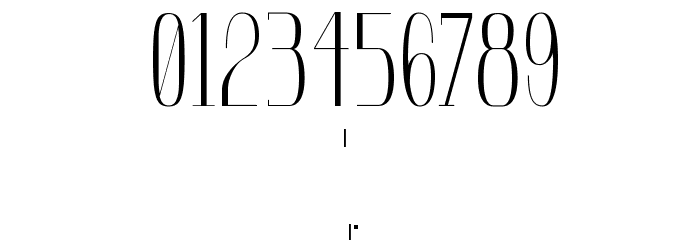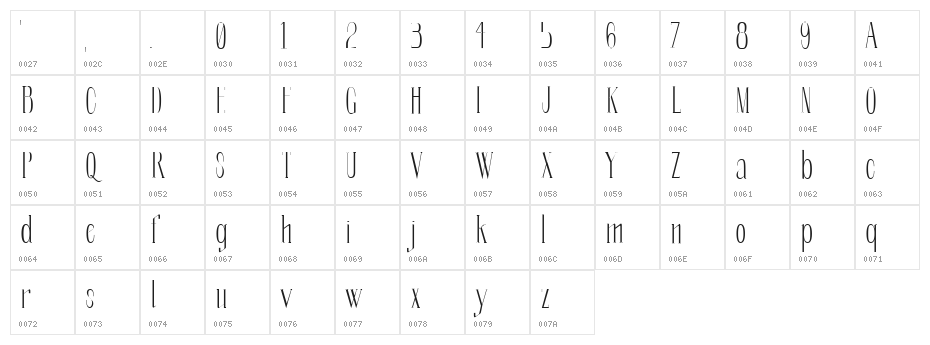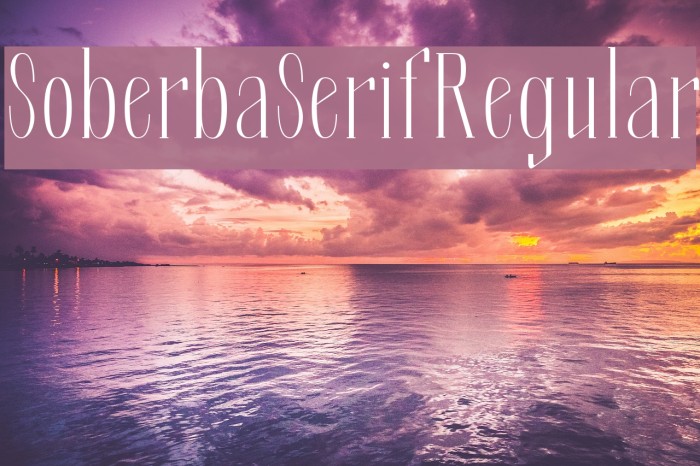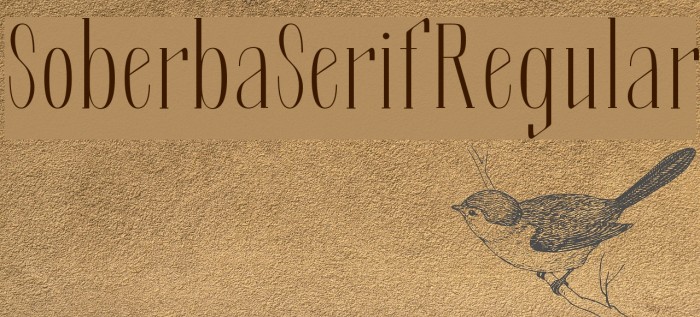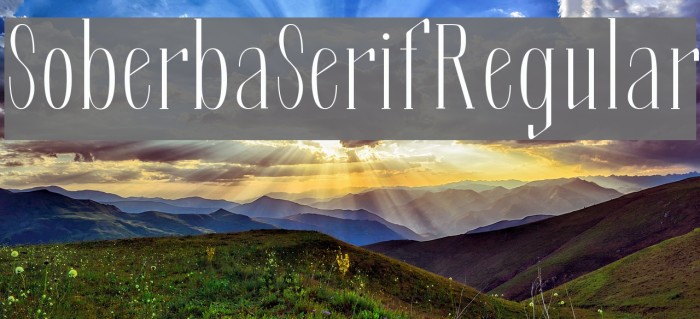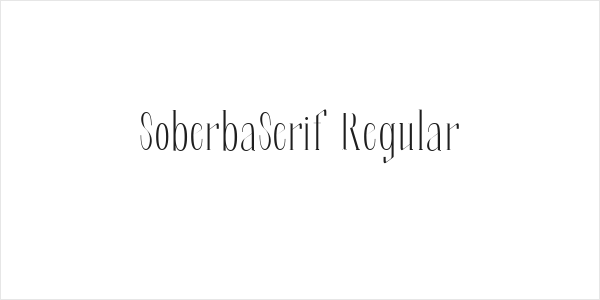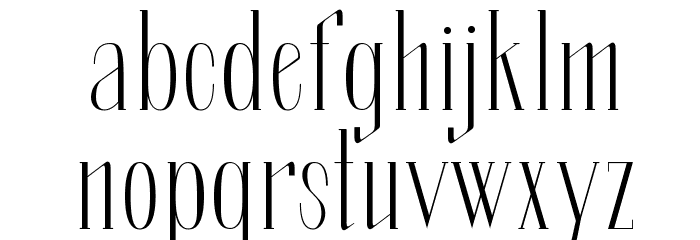
SoberbaSerif-Regular Font
SoberbaSerif-Regular Description
This font features a sophisticated and elegant serif style with tall, narrow letterforms. The strokes are thin with high contrast, giving it a refined and classic appearance. The serifs are sharp and pronounced, adding a touch of formality and tradition. The uppercase letters are particularly elongated, while the lowercase letters maintain a consistent height, creating a harmonious balance. The numerals are designed to match the overall style, with a sleek and modern touch. This font is ideal for projects that require a touch of elegance and sophistication.